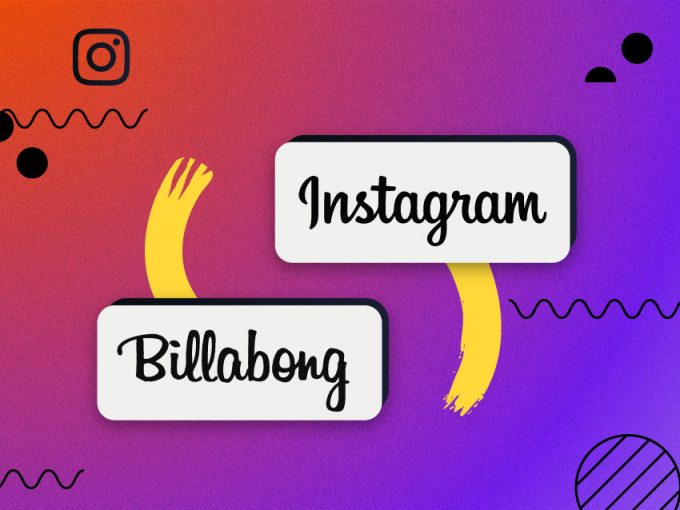
What Font Does Instagram Logo Use . The instagram logo is represented by a camera. This set a playful, creative brand tone. The glyph and wordmark inspired this custom style that nods to our heritage. Instagram sans is our new, global typeface. Instagram sans reflects the shape of the glyph and our. Instagram uses a wide variety of fonts on its platform, so we'll go through each one to help you identify which fonts are used where. In 2011, instagram switched its logo to the neutraface slab typeface. In terms of the instagram logo, the platform previously used the billabong font but now uses sans as its logo font. This imparted a more refined, upscale feel. Developed by google, product sans is a sans. The instagram font is a modern social network application font that enables its users. By dafontfinder october 21, 2024 logo 1 min read. Instagram‘s logo and interface originally used billabong, a funky script font, when launching in 2010.
By dafontfinder october 21, 2024 logo 1 min read. In 2011, instagram switched its logo to the neutraface slab typeface. The glyph and wordmark inspired this custom style that nods to our heritage. This imparted a more refined, upscale feel. The instagram logo is represented by a camera. In terms of the instagram logo, the platform previously used the billabong font but now uses sans as its logo font. This set a playful, creative brand tone. Instagram uses a wide variety of fonts on its platform, so we'll go through each one to help you identify which fonts are used where. Instagram‘s logo and interface originally used billabong, a funky script font, when launching in 2010. Instagram sans reflects the shape of the glyph and our.
What Font Does Instagram Logo Use Instagram sans is our new, global typeface. The instagram font is a modern social network application font that enables its users. This imparted a more refined, upscale feel. Instagram sans is our new, global typeface. This set a playful, creative brand tone. Instagram uses a wide variety of fonts on its platform, so we'll go through each one to help you identify which fonts are used where. By dafontfinder october 21, 2024 logo 1 min read. In terms of the instagram logo, the platform previously used the billabong font but now uses sans as its logo font. The instagram logo is represented by a camera. Instagram‘s logo and interface originally used billabong, a funky script font, when launching in 2010. In 2011, instagram switched its logo to the neutraface slab typeface. The glyph and wordmark inspired this custom style that nods to our heritage. Instagram sans reflects the shape of the glyph and our. Developed by google, product sans is a sans.
695 Instagram logo font name Desktop Background Logo Design and Anime What Font Does Instagram Logo Use Instagram sans is our new, global typeface. By dafontfinder october 21, 2024 logo 1 min read. Instagram sans reflects the shape of the glyph and our. The instagram font is a modern social network application font that enables its users. This imparted a more refined, upscale feel. In terms of the instagram logo, the platform previously used the billabong font. What Font Does Instagram Logo Use.
What font does Instagram use? Check them out in here What Font Does Instagram Logo Use The instagram logo is represented by a camera. The instagram font is a modern social network application font that enables its users. Instagram sans is our new, global typeface. The glyph and wordmark inspired this custom style that nods to our heritage. Instagram uses a wide variety of fonts on its platform, so we'll go through each one to help. What Font Does Instagram Logo Use.
Instagram Logo Font Family What Font Does Instagram Logo Use The glyph and wordmark inspired this custom style that nods to our heritage. Instagram‘s logo and interface originally used billabong, a funky script font, when launching in 2010. In terms of the instagram logo, the platform previously used the billabong font but now uses sans as its logo font. Instagram uses a wide variety of fonts on its platform, so. What Font Does Instagram Logo Use.
What Font Does Instagram Use? TechCult What Font Does Instagram Logo Use Instagram‘s logo and interface originally used billabong, a funky script font, when launching in 2010. In 2011, instagram switched its logo to the neutraface slab typeface. This imparted a more refined, upscale feel. The glyph and wordmark inspired this custom style that nods to our heritage. Instagram sans is our new, global typeface. Developed by google, product sans is a. What Font Does Instagram Logo Use.
What Font Does Instagram Use? for Stories Bio Messages What Font Does Instagram Logo Use The instagram font is a modern social network application font that enables its users. By dafontfinder october 21, 2024 logo 1 min read. In 2011, instagram switched its logo to the neutraface slab typeface. Instagram‘s logo and interface originally used billabong, a funky script font, when launching in 2010. The glyph and wordmark inspired this custom style that nods to. What Font Does Instagram Logo Use.
Instagram Logo Font Style What Font Does Instagram Logo Use Instagram sans is our new, global typeface. Instagram sans reflects the shape of the glyph and our. The instagram font is a modern social network application font that enables its users. Instagram‘s logo and interface originally used billabong, a funky script font, when launching in 2010. The instagram logo is represented by a camera. The glyph and wordmark inspired this. What Font Does Instagram Logo Use.
What Font Does IG Use? A Guide to Instagram Typography What Font Does Instagram Logo Use Instagram sans is our new, global typeface. The glyph and wordmark inspired this custom style that nods to our heritage. Instagram sans reflects the shape of the glyph and our. Instagram uses a wide variety of fonts on its platform, so we'll go through each one to help you identify which fonts are used where. By dafontfinder october 21, 2024. What Font Does Instagram Logo Use.
What's the Instagram logo font? Social Tradia What Font Does Instagram Logo Use In terms of the instagram logo, the platform previously used the billabong font but now uses sans as its logo font. The instagram logo is represented by a camera. In 2011, instagram switched its logo to the neutraface slab typeface. This imparted a more refined, upscale feel. Instagram‘s logo and interface originally used billabong, a funky script font, when launching. What Font Does Instagram Logo Use.